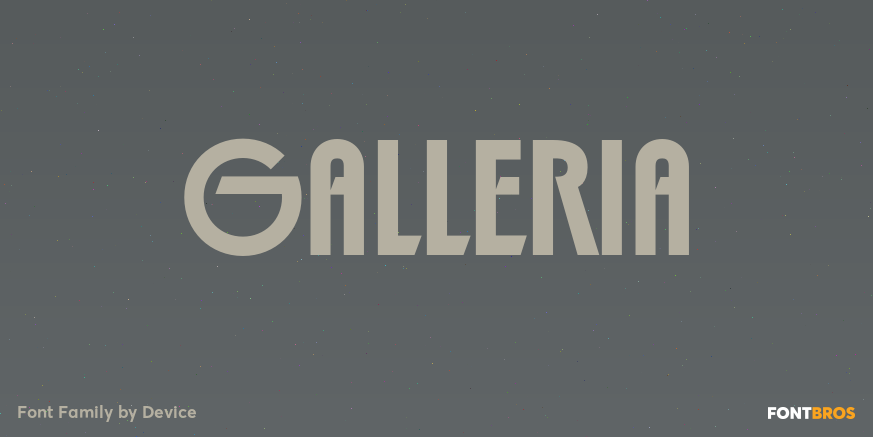
HomeFont BrosArt Deco (1910-1935)Galleria Art Deco (1910-1935)Sans Serif Galleria FacebookXPinterestWhatsApp 1 of 1 About Galleria A geometric sans with chiselled terminals and alternate forms.  DOWNLOAD NOW People also explored Sollasy Font Chinthya Font NH Rail Font Mariposa Font Odelina Font Heraldic Devices Font Minigap December Font Happy Camping Font 207 0 TagsGalleria Font Previous articleStupid CowNext articleMonophonic LEAVE A REPLY Cancel reply Comment: Please enter your comment! Name:* Please enter your name here Email:* You have entered an incorrect email address! Please enter your email address here Website: Save my name, email, and website in this browser for the next time I comment. Personal Use Free Sileighty Personal Use Free Read more about this font Makeba Font Personal Use Free Read more about this font Bonifaciy Personal Use Free Read more about this font Rembank Personal Use Free Read more about this font BLOG Exploring Font Trends Shaping Communication in the Digital Era Fonts, like all design elements, are subject to trends. They play a crucial role in communicating a brand's personality,... Best Fonts for T-Shirt Design – Top 2025 Picks Where to Buy American Fonts Online in 2024 Top 10 Handwritten Fonts That Elevate Your Designs